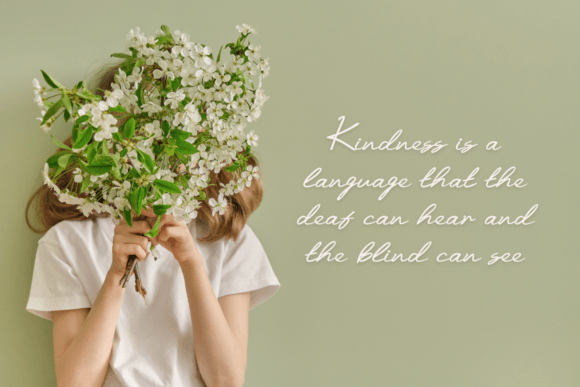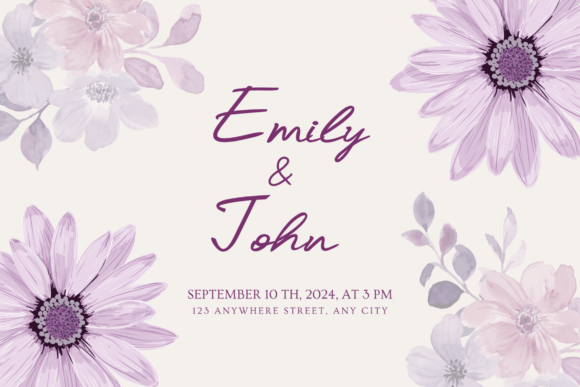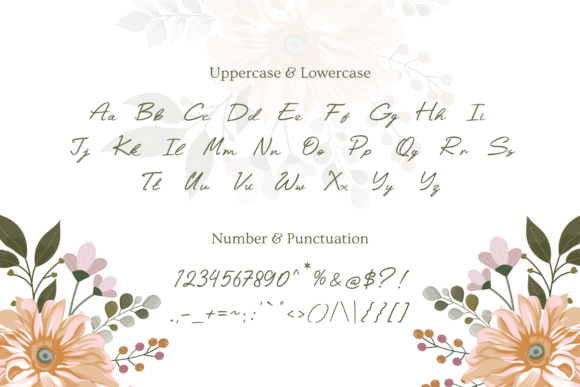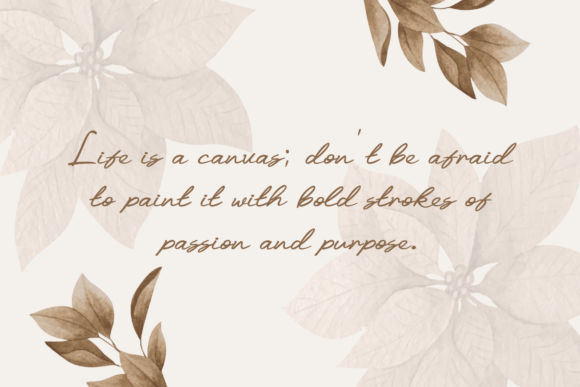
Introduction to Manakala Font
Have you ever stumbled upon a font that instantly brightens up your design project? For me, it was the Manakala Font. I was working on a wedding invitation design and needed something that would convey a sense of joy and warmth. As I browsed through my font collection, I came across Manakala, and I knew I had found the perfect match. Its sweet and friendly handwriting style was exactly what I needed to bring my design to life.
With its cute and versatile nature, Manakala Font is an ideal choice for designers looking to add a fun touch to their creative projects. Whether you’re working on a wedding invitation, card, or any other design, this font is sure to make a lasting impression. Plus, with a transparent background option, you can easily customize it to fit your design needs.
Key Features of Manakala Font
- High-quality design: Manakala Font offers a unique and elegant design perfect for creative projects that require a sophisticated look.
- Transparent background: Manakala Font features a transparent background, allowing for seamless integration with various design elements.
- Unique script style: This font features a distinctive script style, making it perfect for creative projects that require a personal touch.
- Perfect for creative projects: Manakala Font is an excellent choice for designers, artists, and writers working on creative projects that require a high level of sophistication and elegance.
Honest Review: Manakala Font
I recently had the opportunity to work with the Manakala Font, and I must say it’s been a delightful addition to my design resource collection. This free download has been a game-changer for my creative projects, offering a unique and eye-catching aesthetic that sets my designs apart.
What works well with the Manakala Font is its versatility. I’ve used it for both digital and print projects, and it looks great in various contexts. The font’s high quality is evident, even when used on a transparent background – a feature that’s particularly useful for designers who need to create visually appealing graphics.
- ✨ Unique and creative feel that adds a personal touch to designs
- ✨ High-quality design that looks great on various backgrounds, including transparent ones
However, I do have to mention a few limitations. The font’s character set is somewhat limited, which may not be ideal for projects that require a wide range of languages or characters.
Overall, I’m thoroughly impressed with the Manakala Font. Its creative feel, high quality, and free download make it an excellent addition to any designer’s toolkit. While it may not be perfect, its strengths far outweigh its limitations, making it a valuable design resource for anyone looking to add some visual interest to their projects.
Tips for Getting the Most Out of Manakala Font
To get the most out of the Manakala Font, use it with a transparent background to create a sleek and modern design. This high-quality font is perfect for creative projects, such as logos, branding materials, and digital graphics.
The Manakala Font is commonly used in various design projects, including:
Logos and branding materials
Digital graphics and illustrations
Presentations and documents
Web design and development
Conclusion
The Manakala Font is a versatile and high-quality design resource that can be used in a variety of creative projects. With its transparent background and free download option, it’s an ideal choice for designers and artists. By following these steps and tips, you can get the most out of the Manakala Font and create stunning designs
Does the Manakala Font have a transparent background?
No, the Manakala Font does not have a transparent background. However, it’s designed to work well with transparent backgrounds in graphic design applications, such as Adobe Photoshop or Illustrator. You can easily combine the font with other design elements and backgrounds to create visually appealing compositions.